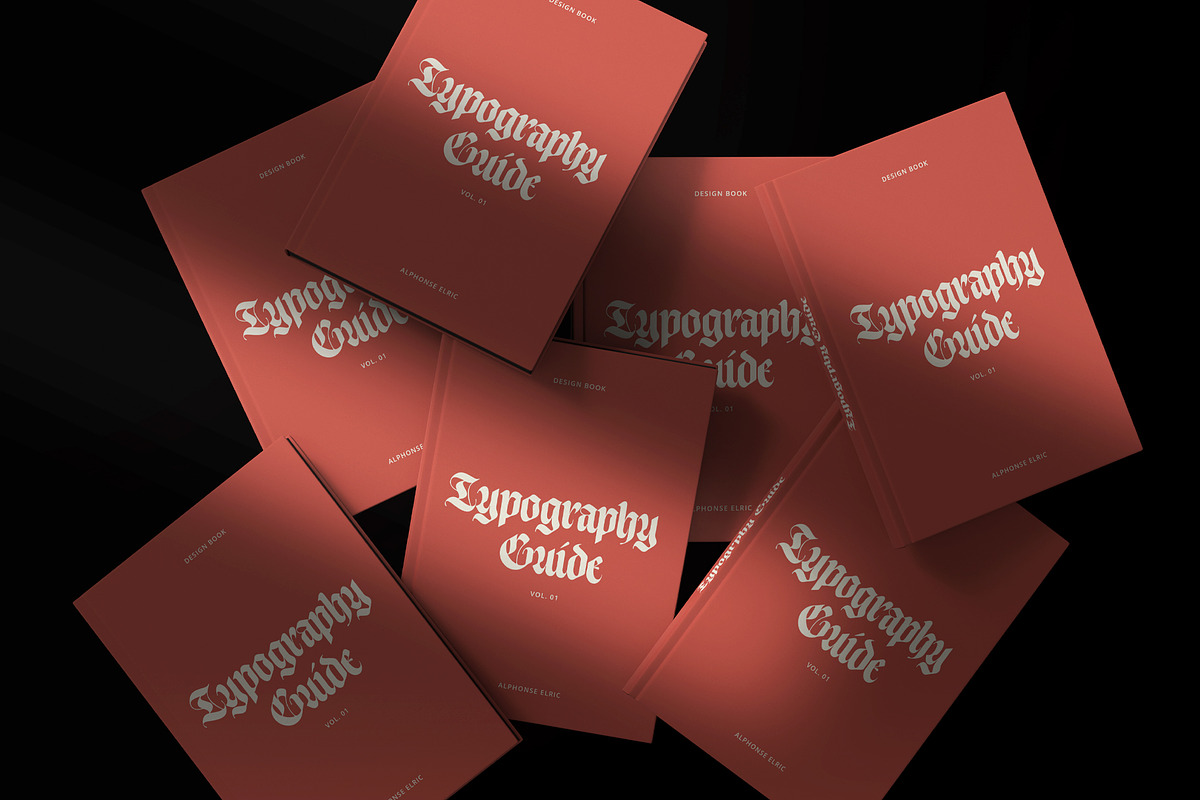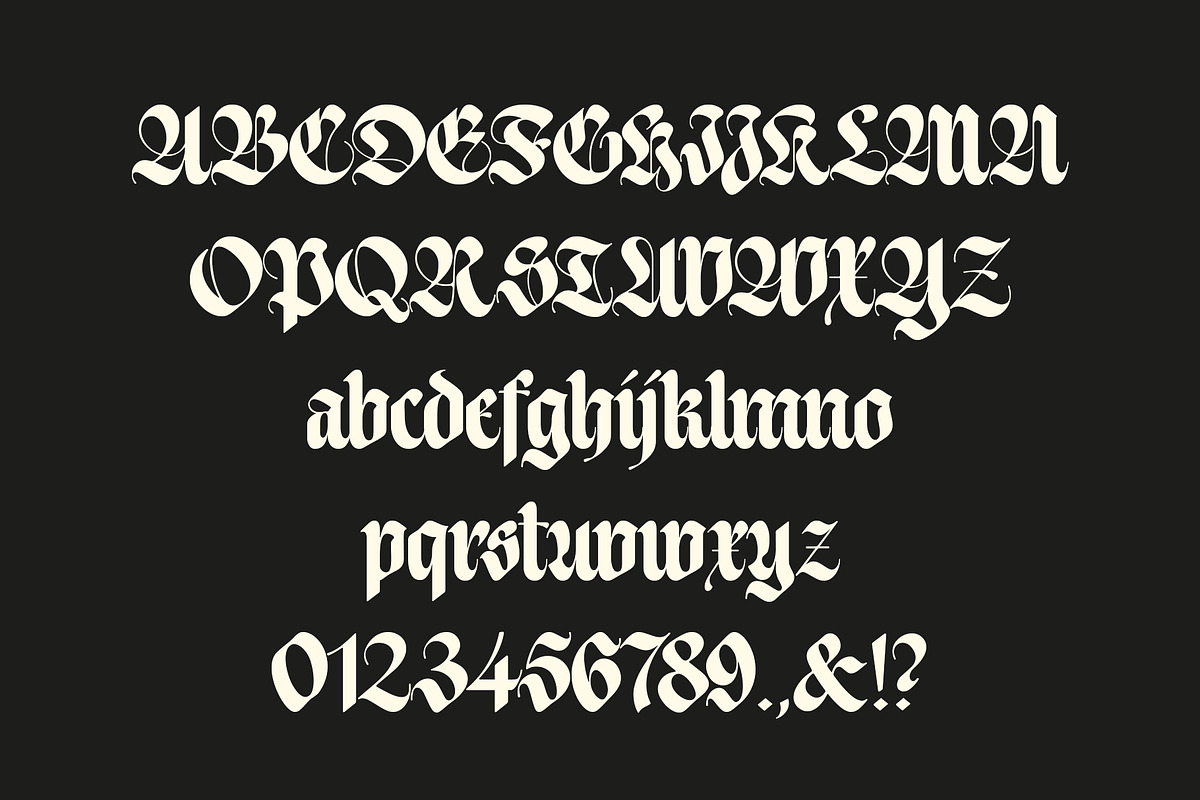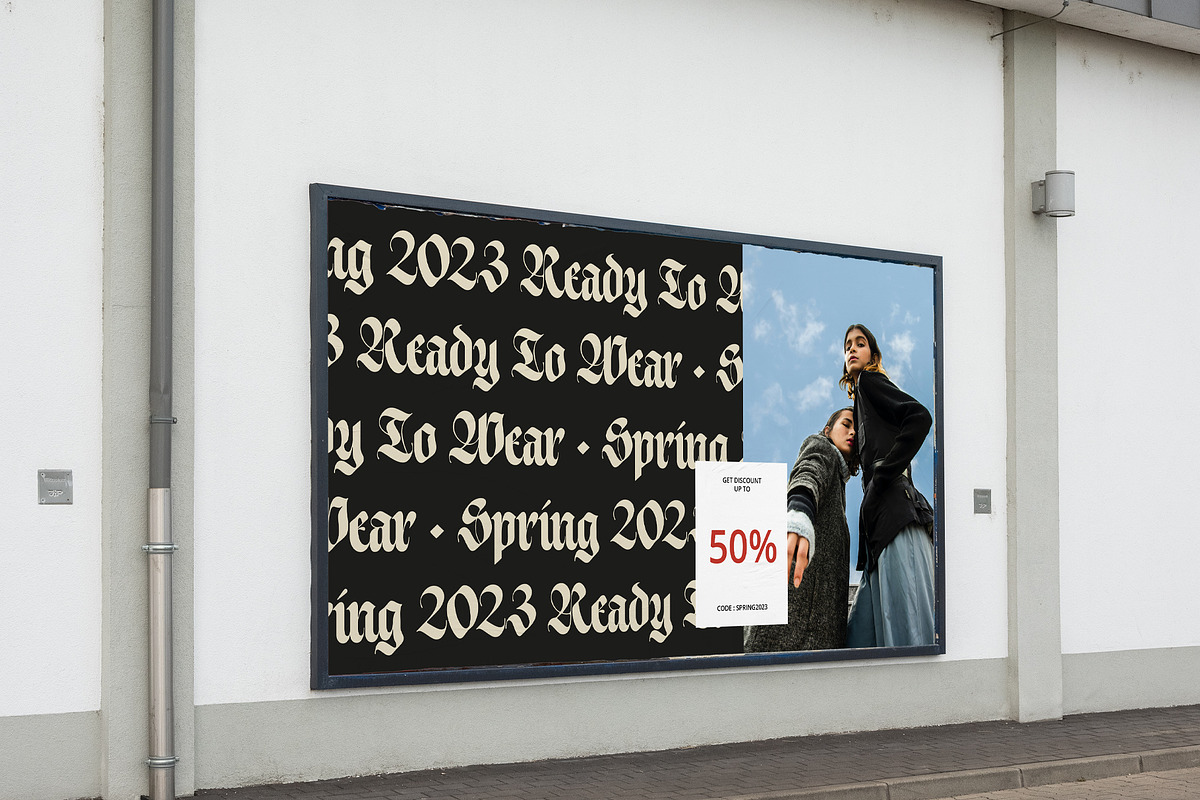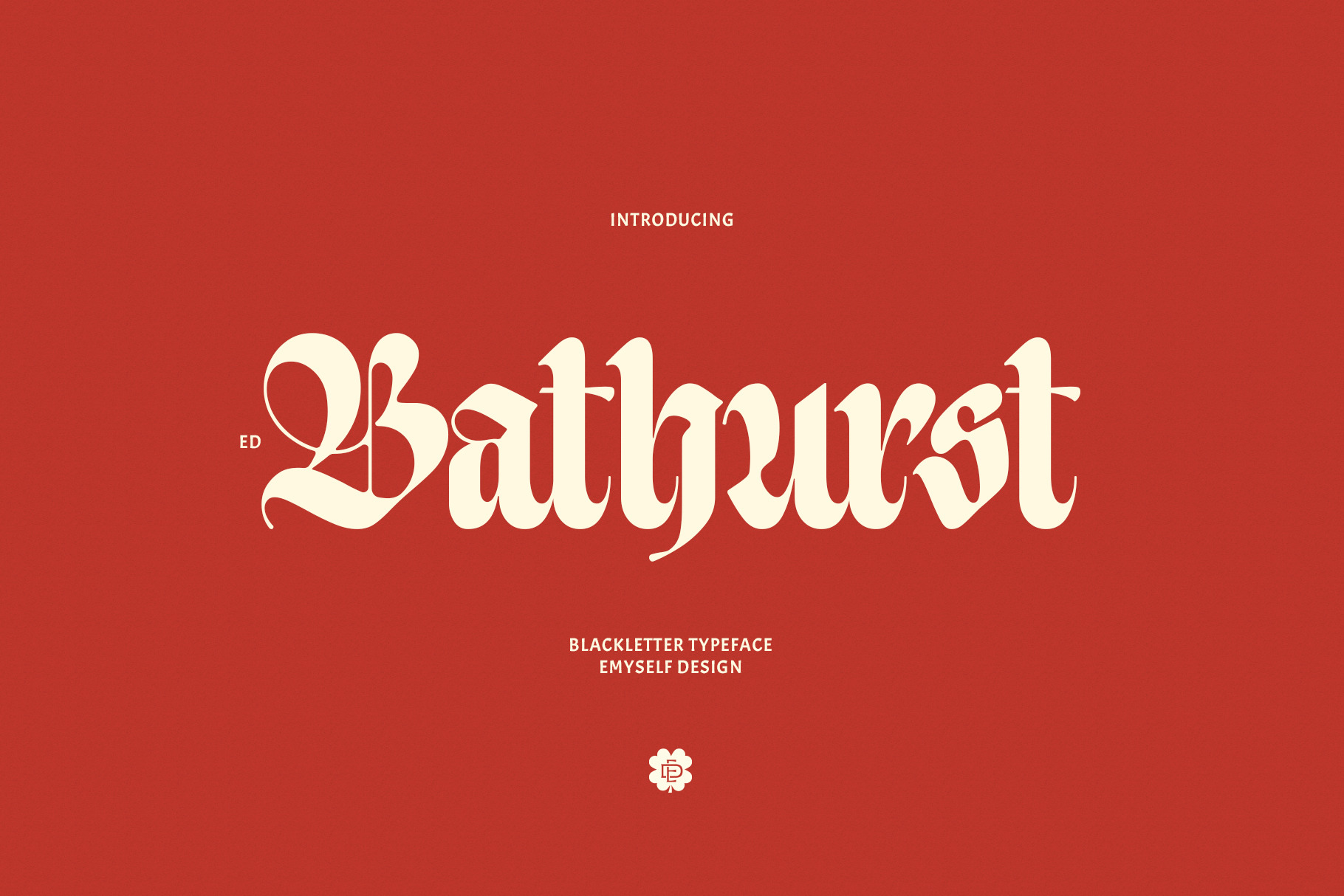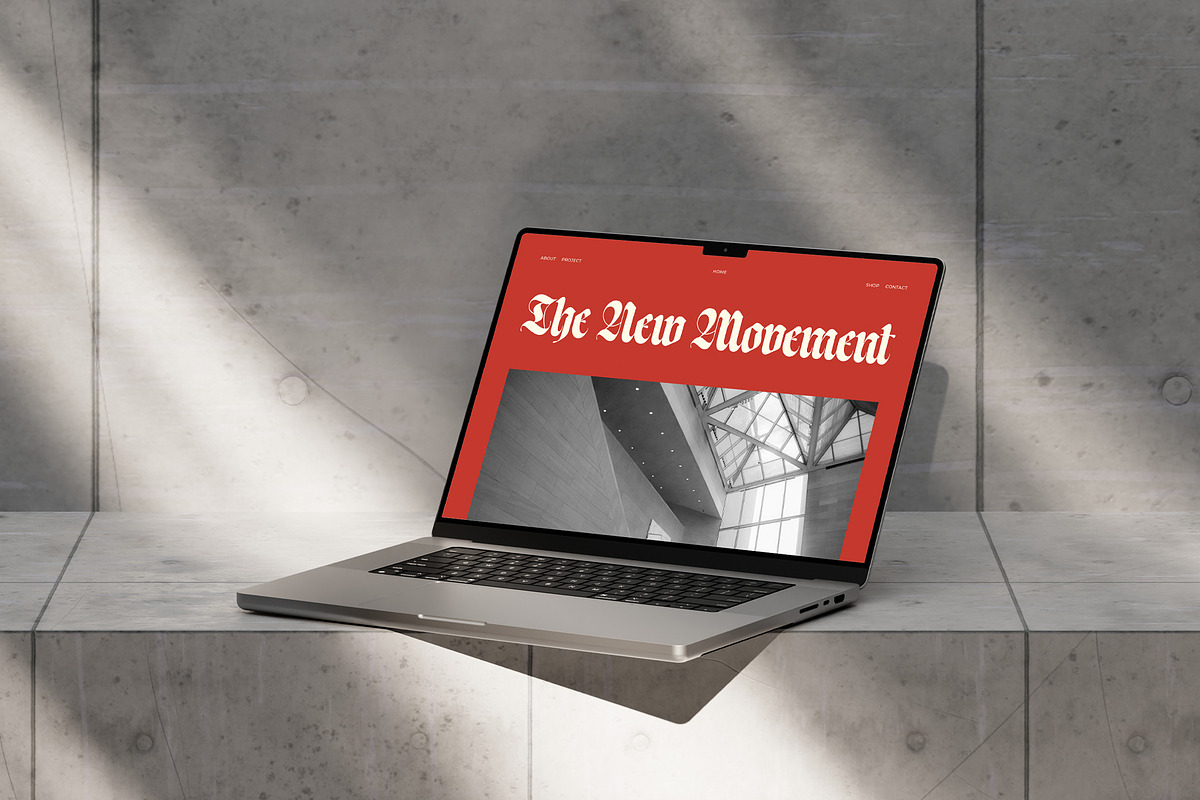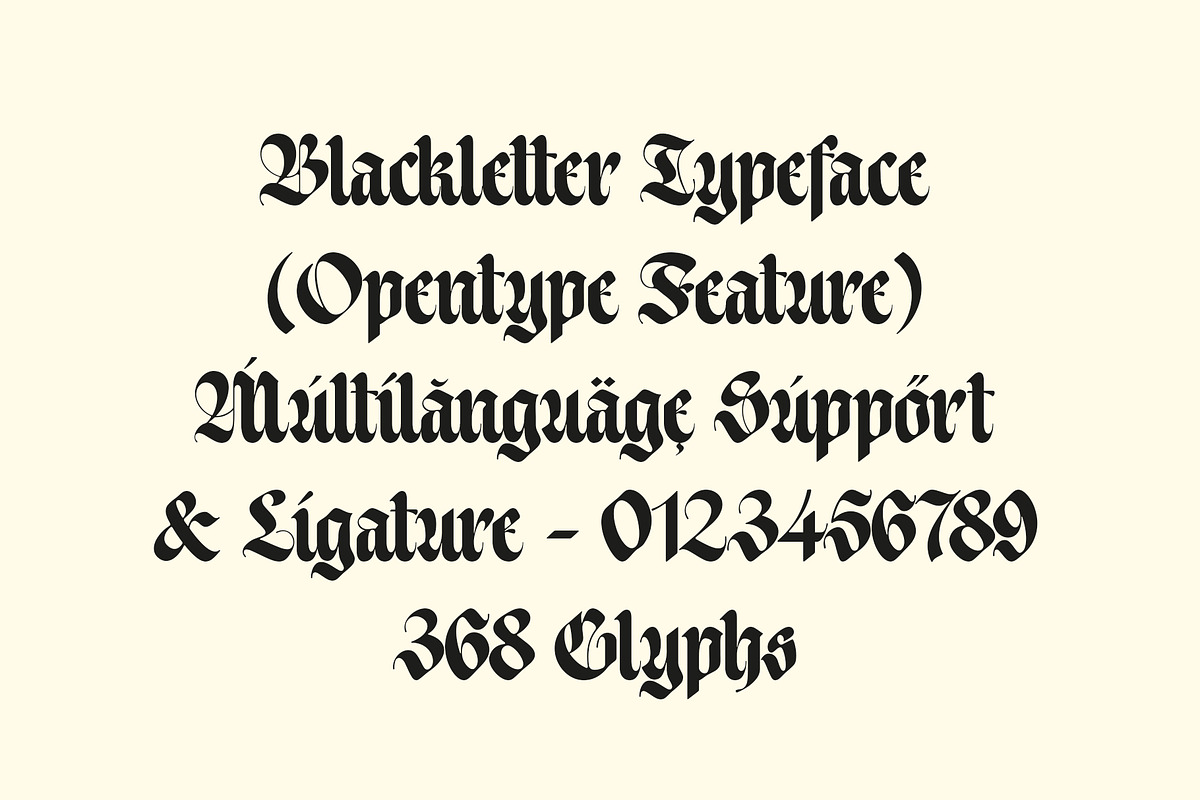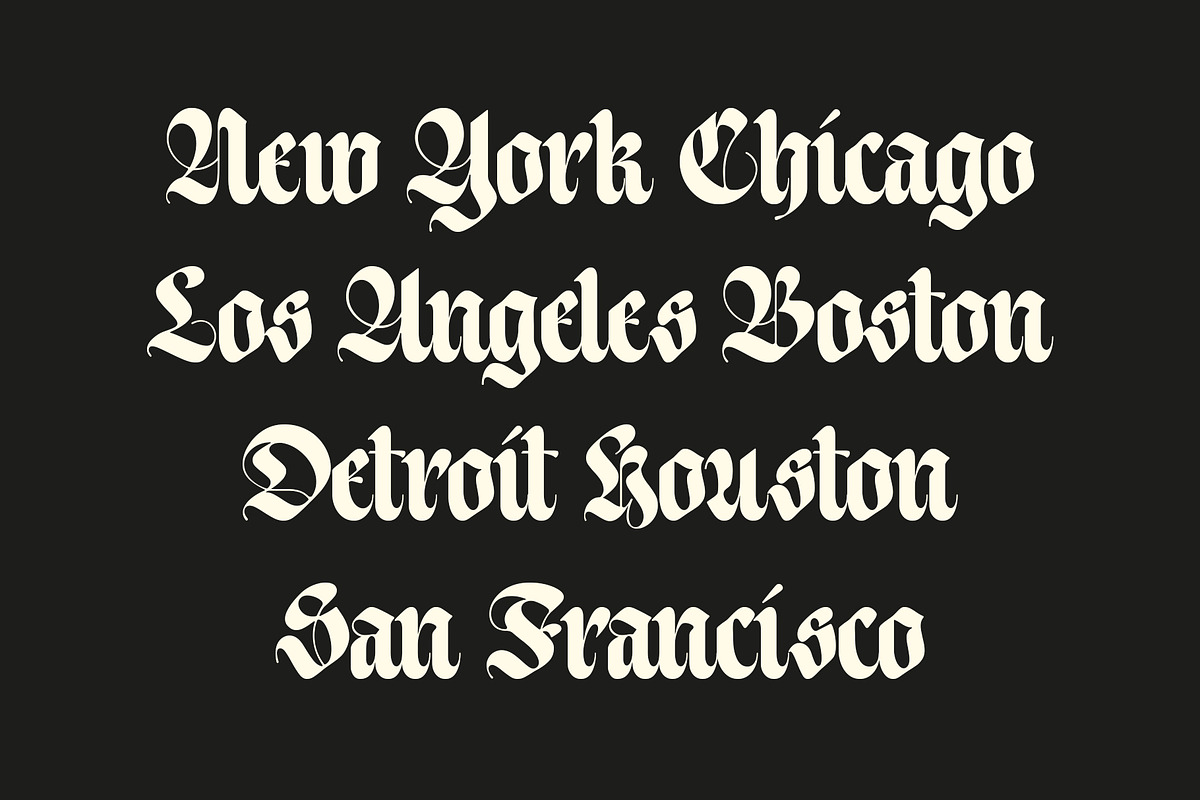
ED Bathurst - Blackletter Typeface
ED Bathurst is a modern classic blackletter style supported with multilingual character and ligature features. This font is perfect for your design needs such as poster design, logo design, branding, apparel, book, magazine, etc.
- Total Glyph : 368
- Punctuation and Marks